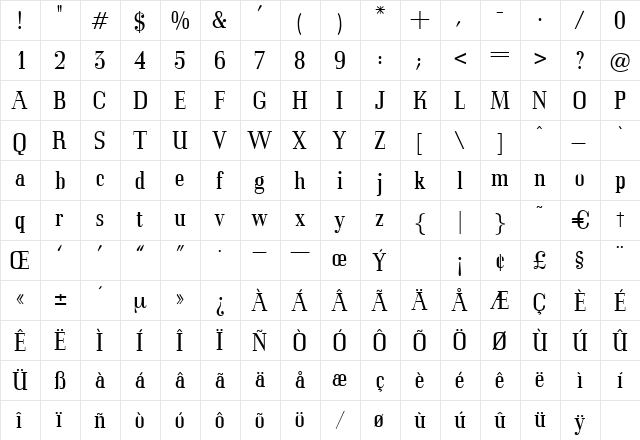
Mercator Regular
Design Context for Mercator Typeface
Mercator takes a measured approach to typography — its balanced proportions and neutral character make it a reliable workhorse for both digital and print work.